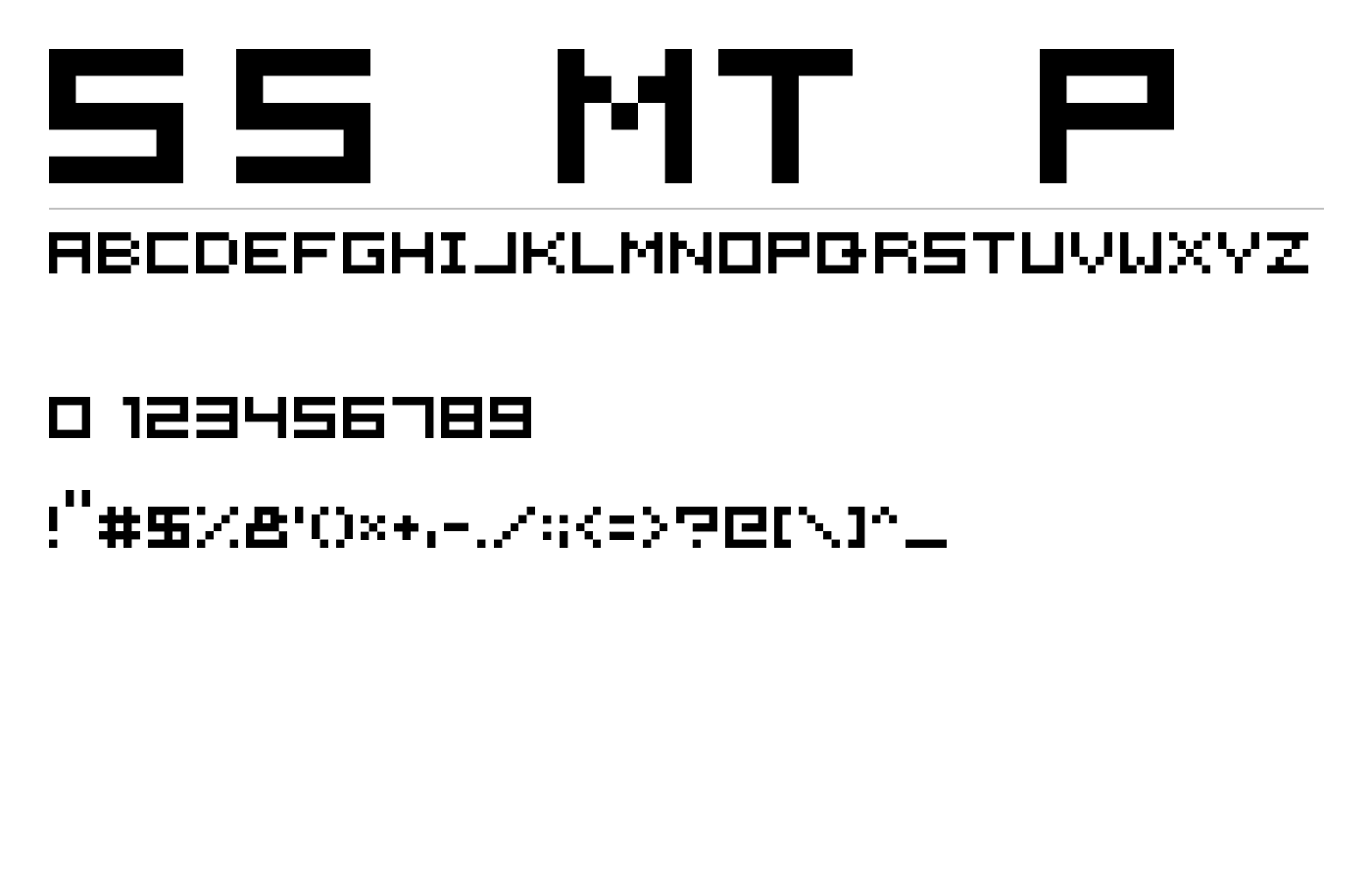
5x5 MT Pixel Font is a bold, geometric monospace typeface designed with a pixel-art aesthetic, featuring square, blocky letterforms and consistent stroke weight. Its minimal x-height and clean edges create a retro digital feel, perfect for video game graphics, tech-inspired designs, and any project needing a nostalgic yet modern pixel look. This font works best in logos, headlines, and user interfaces where clarity and a vintage computer vibe are important.
5x5 MT Pixel Font